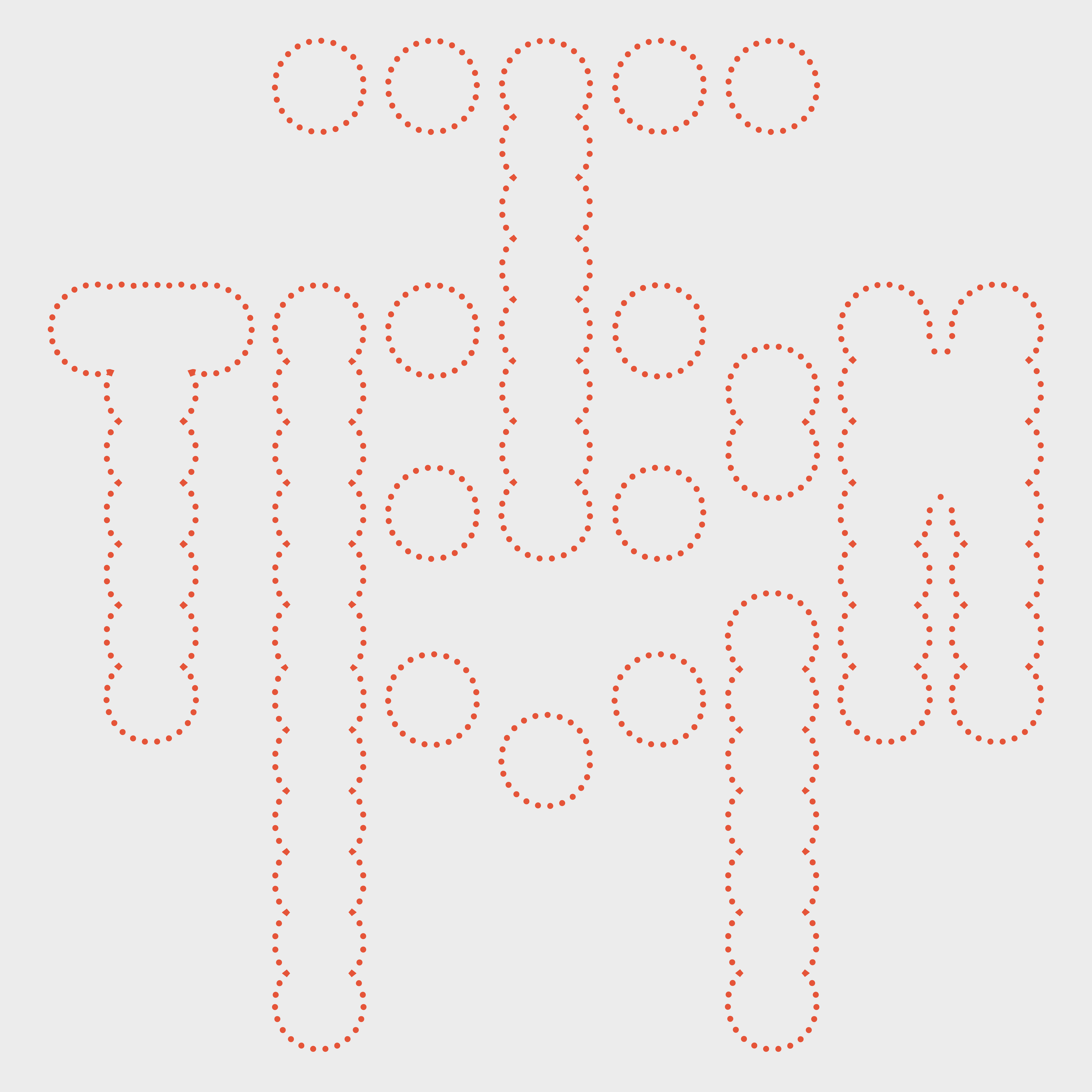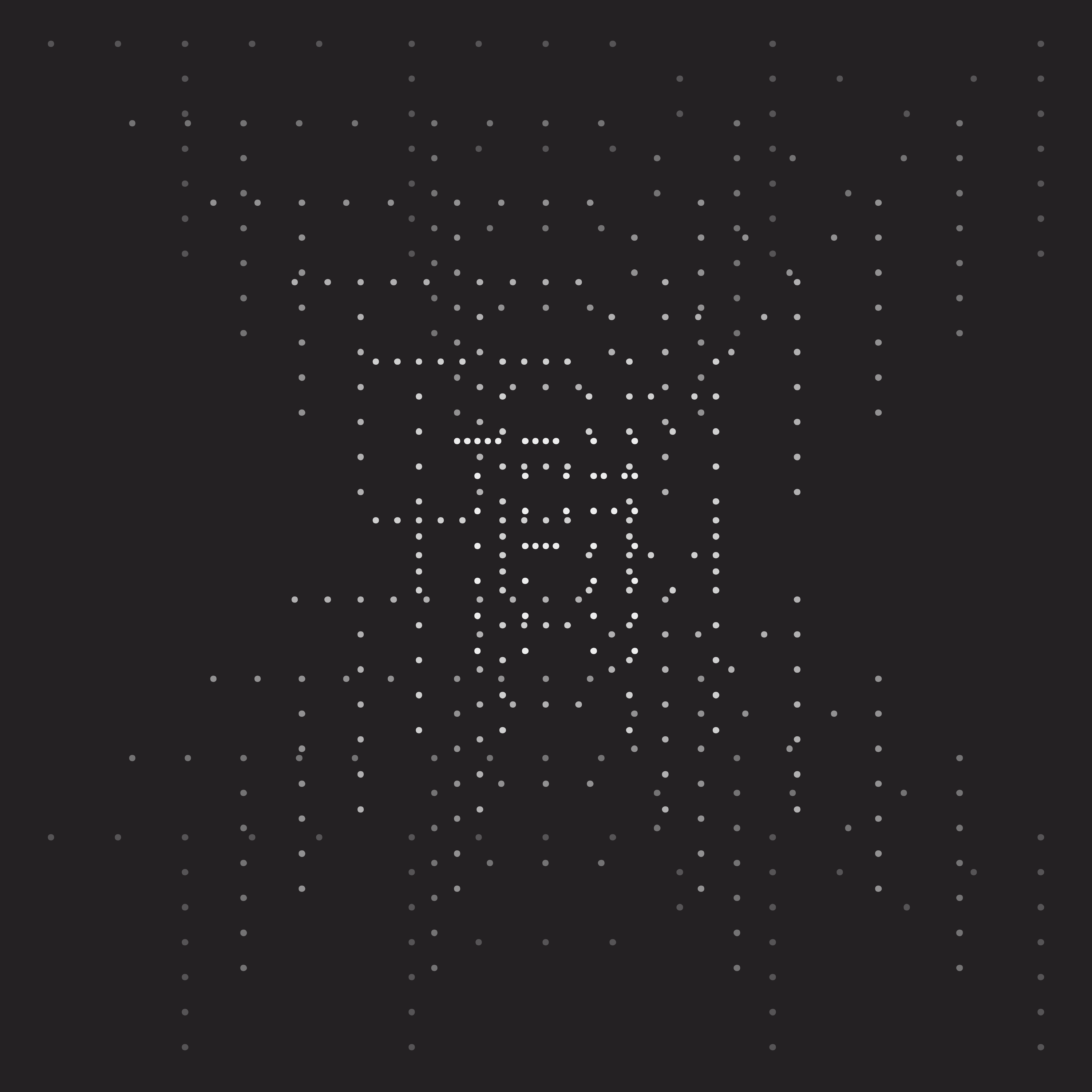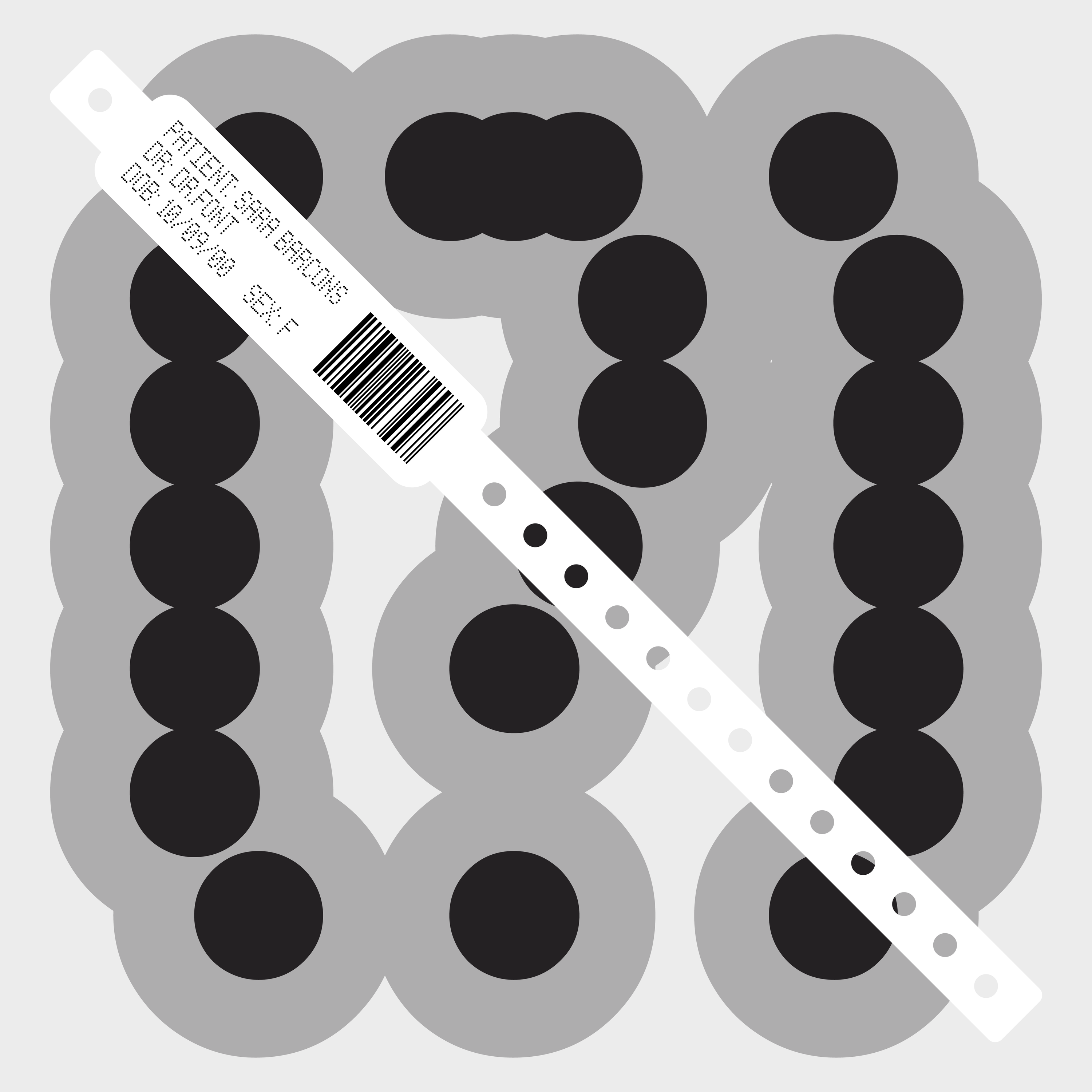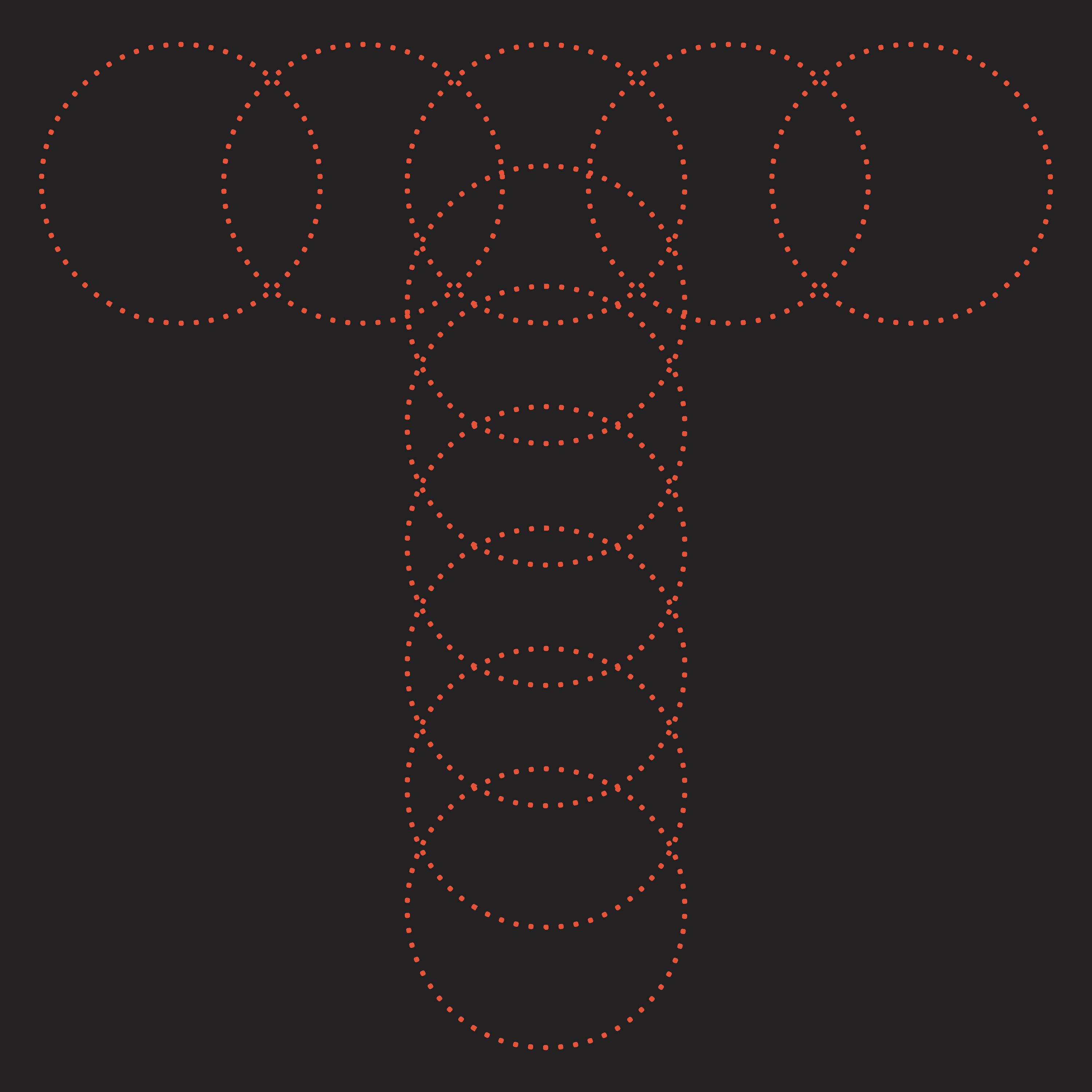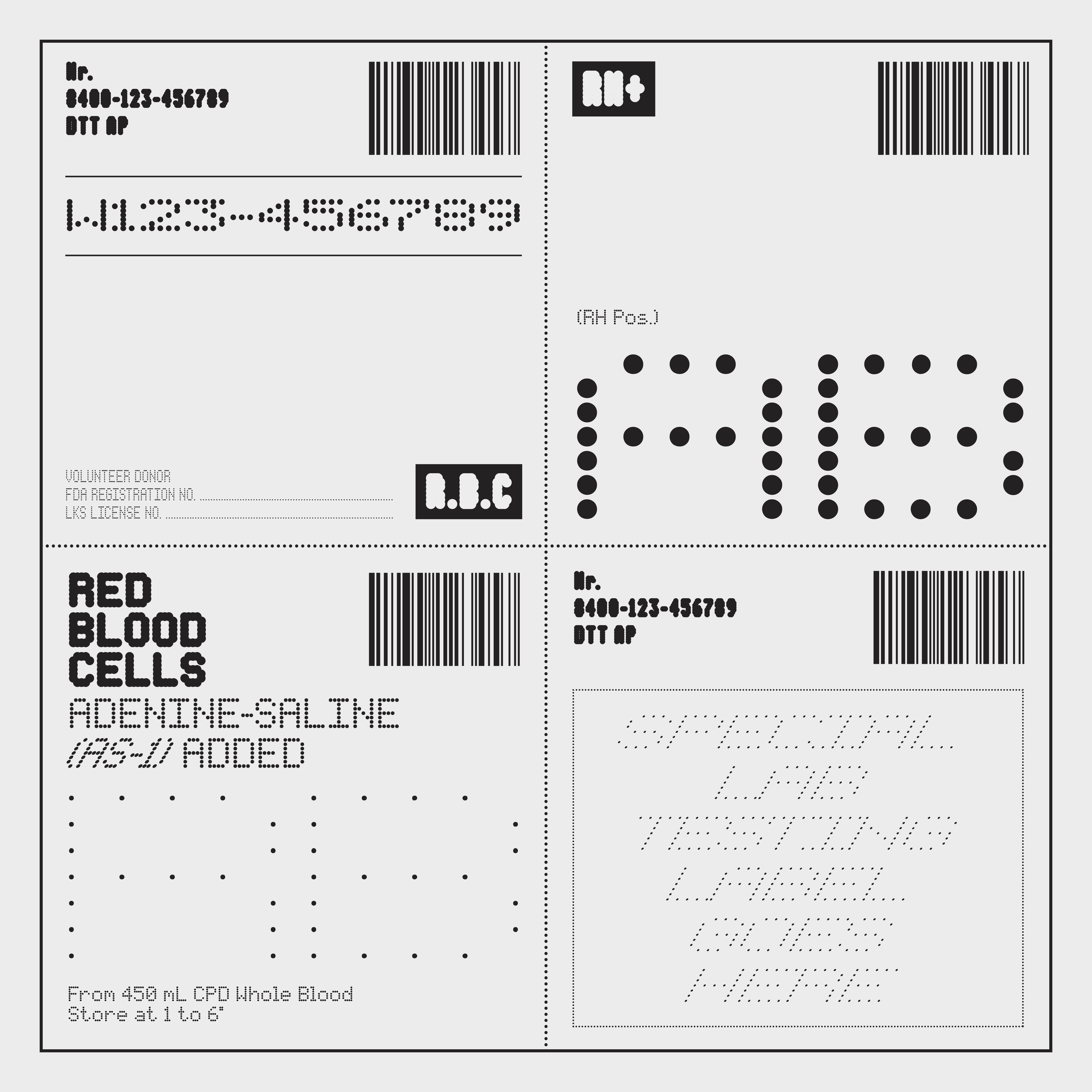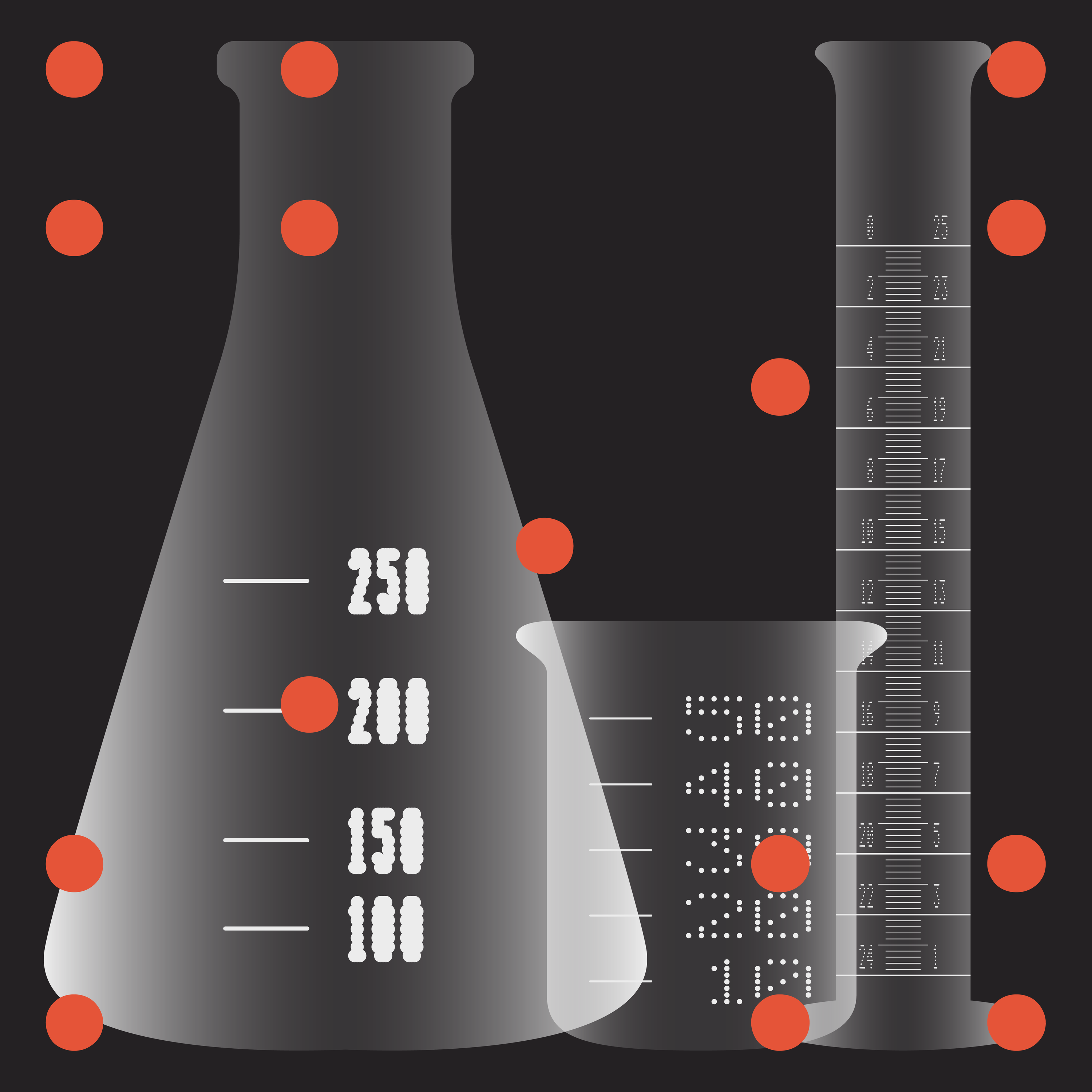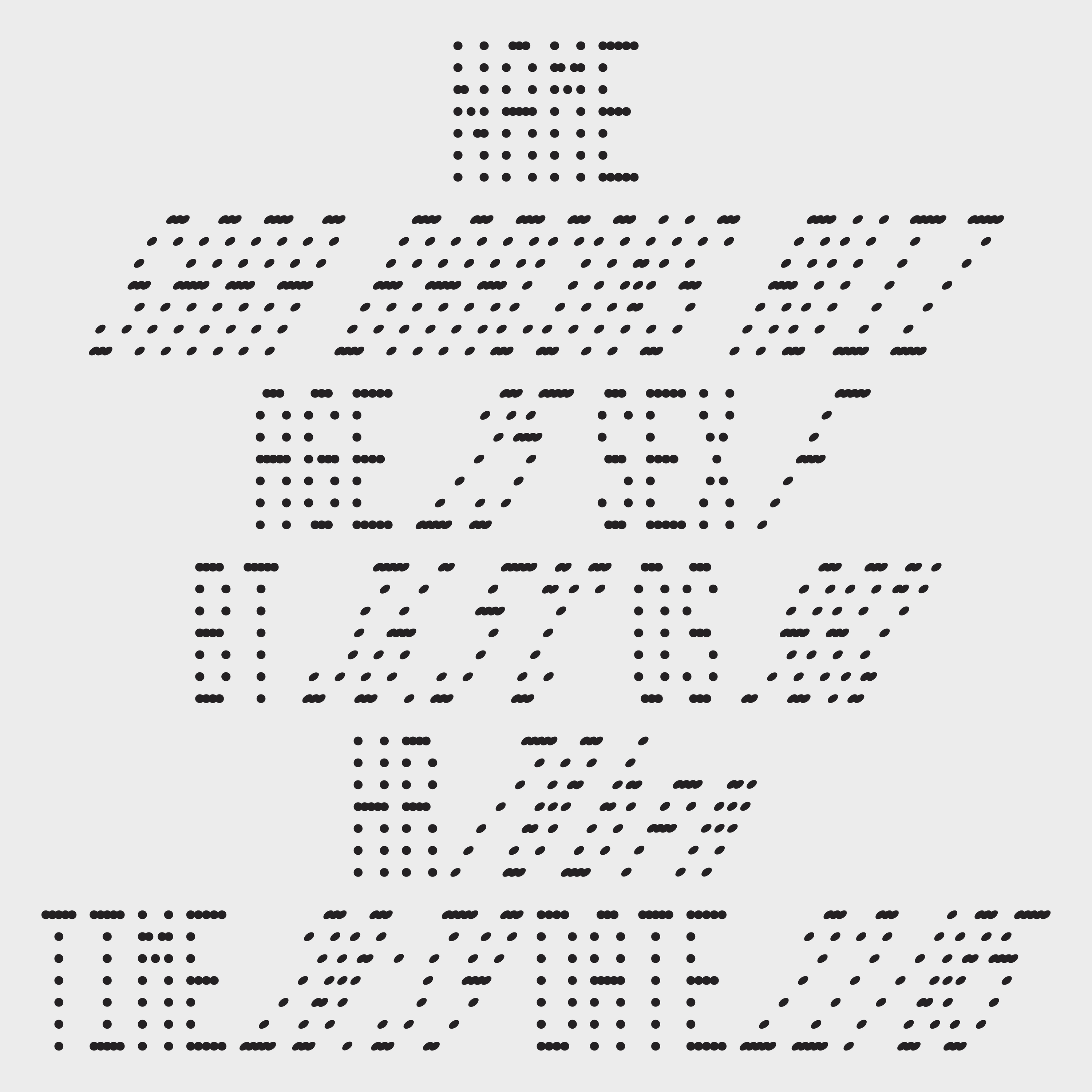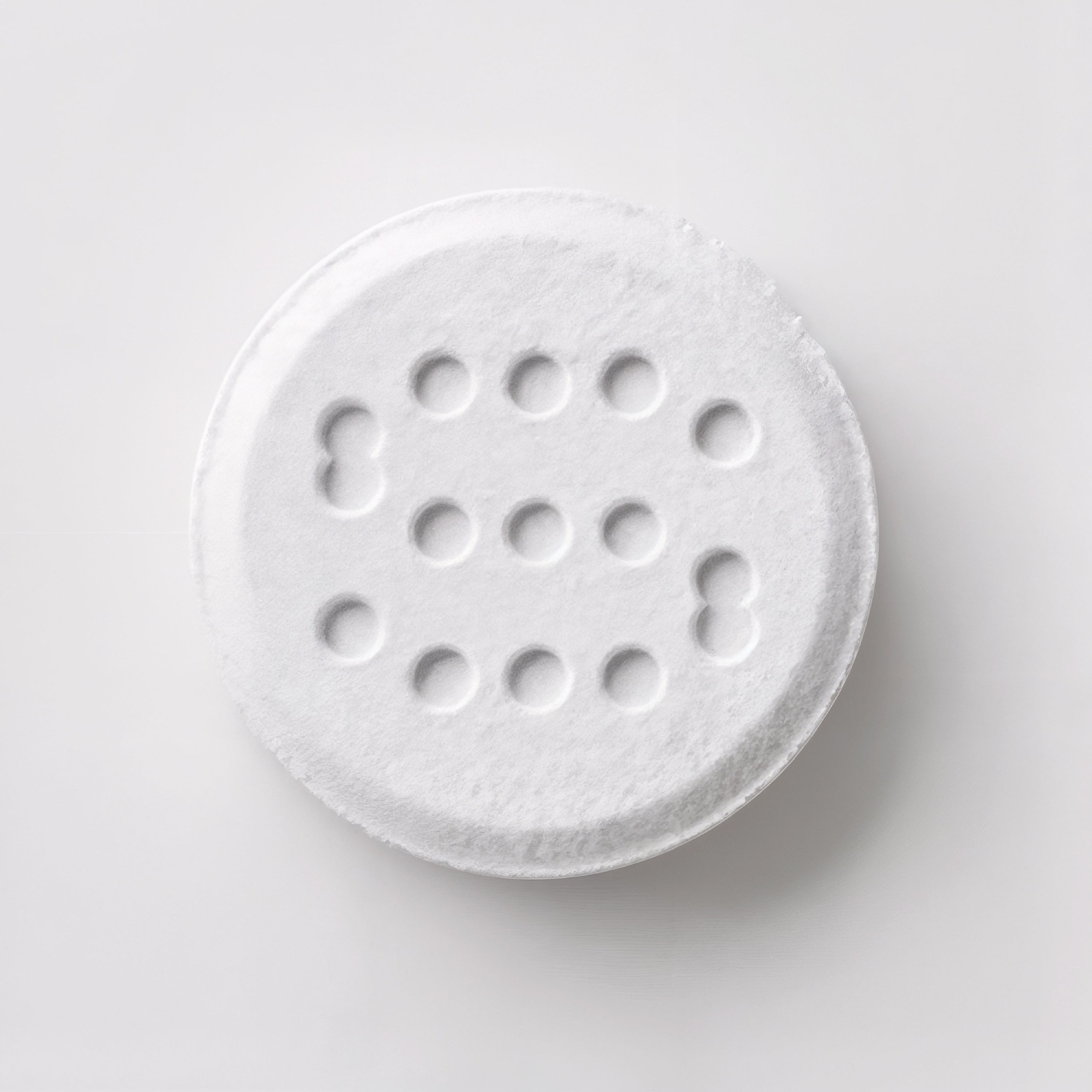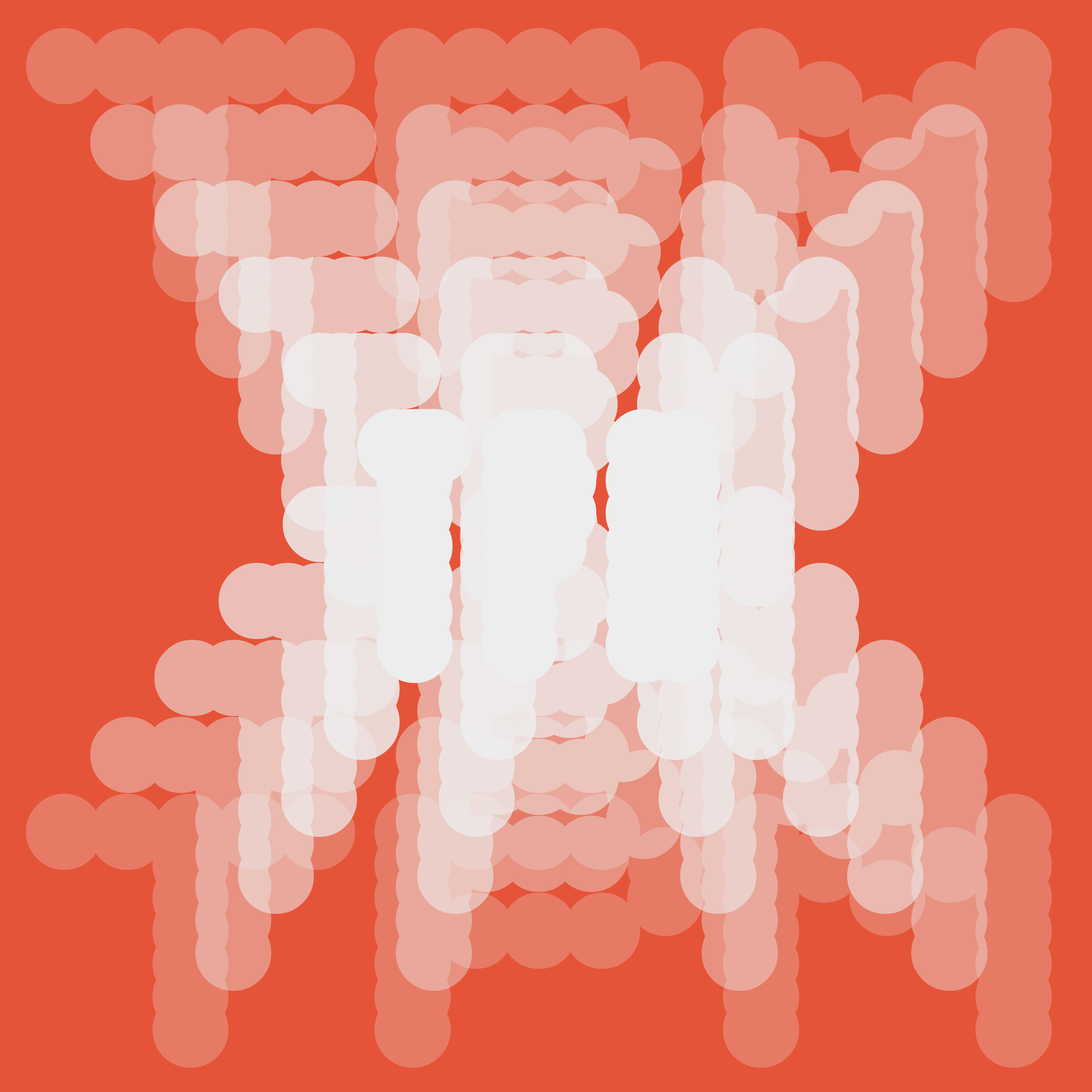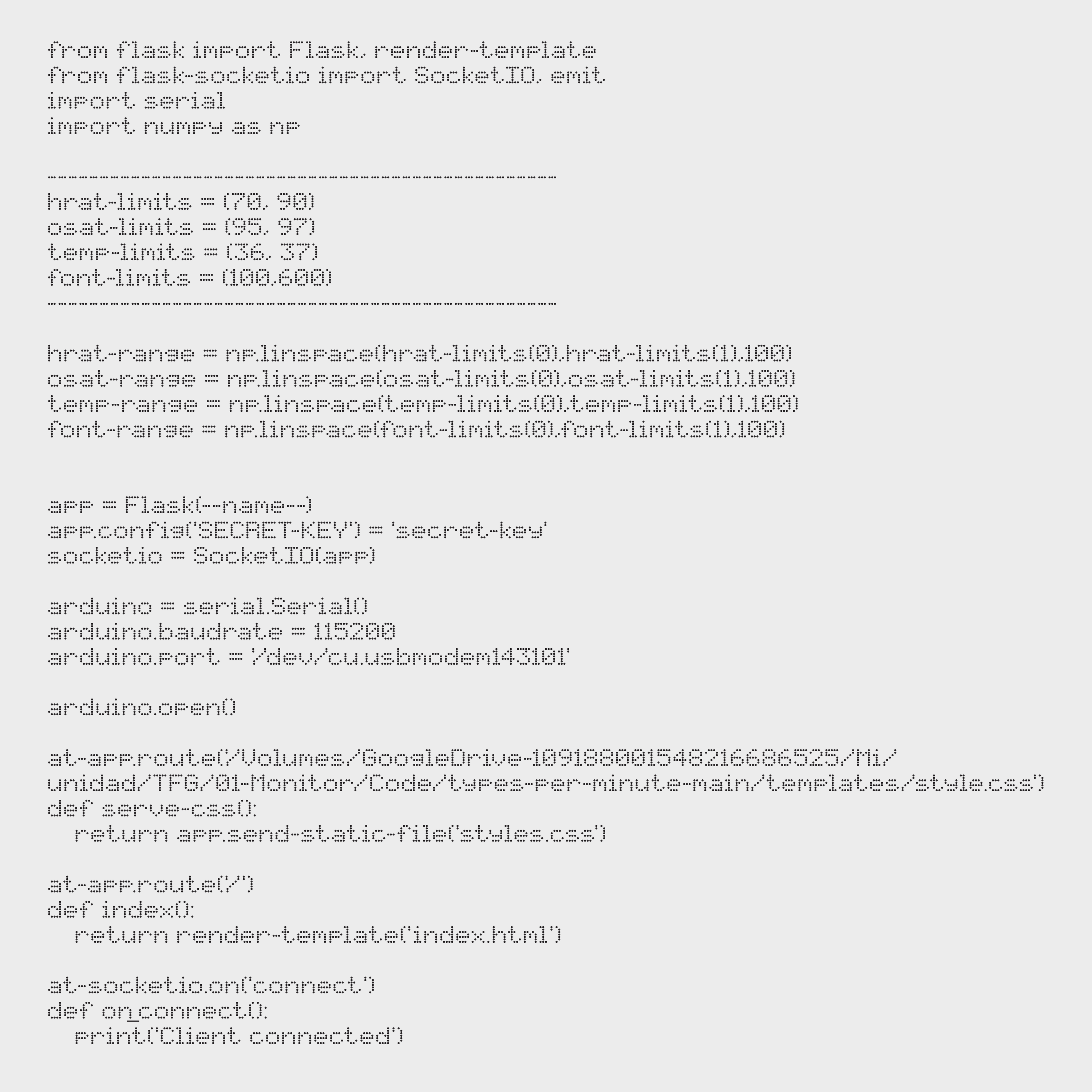
TPM Typeface (Test)
TPM (Types per Minute) is a three-axis display variable typeface. Inspired by the displays used in the early stages of technology, TPM is based on a 5×7 array of dots. The weight axis (BT) increases or decreases the size of the dots, the width axis (OS) controls the horizontal distance between the dots and the slant (HR) tilts the matrix from 0 to 30º. The combination of these three variable parameters create a huge amount of typographic possibilities that can be used for branding, visual identities, packaging and many other digital and print applications.
This typeface was the result of an experimental research project about using variable fonts to display information. Through a pulse oximetry sensor and a virtual monitor, the three main vital signs (Body Temperature, Oxygen Saturation and Heart Rate) were represented in real-time in the variable axis of weight, width and slant, respectively. This allowed for a double-layered transmission of information, where the letterforms carry the data, and language carries a message.